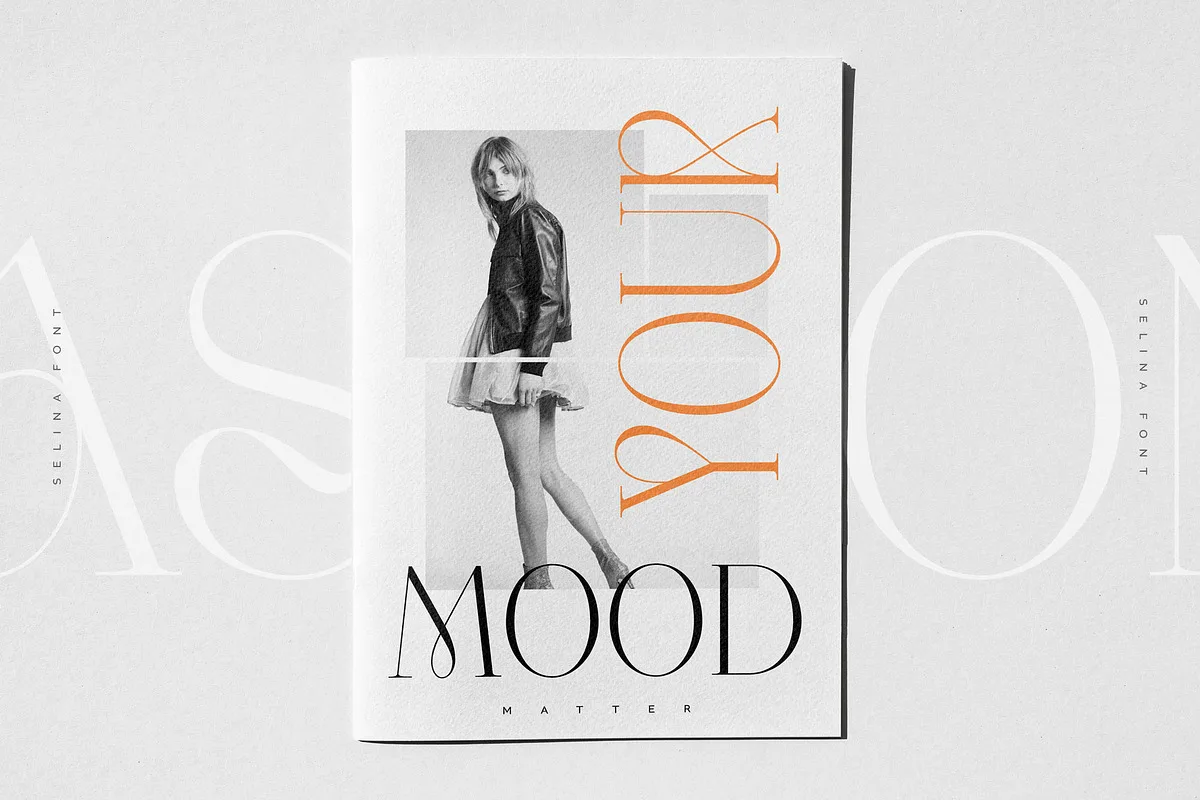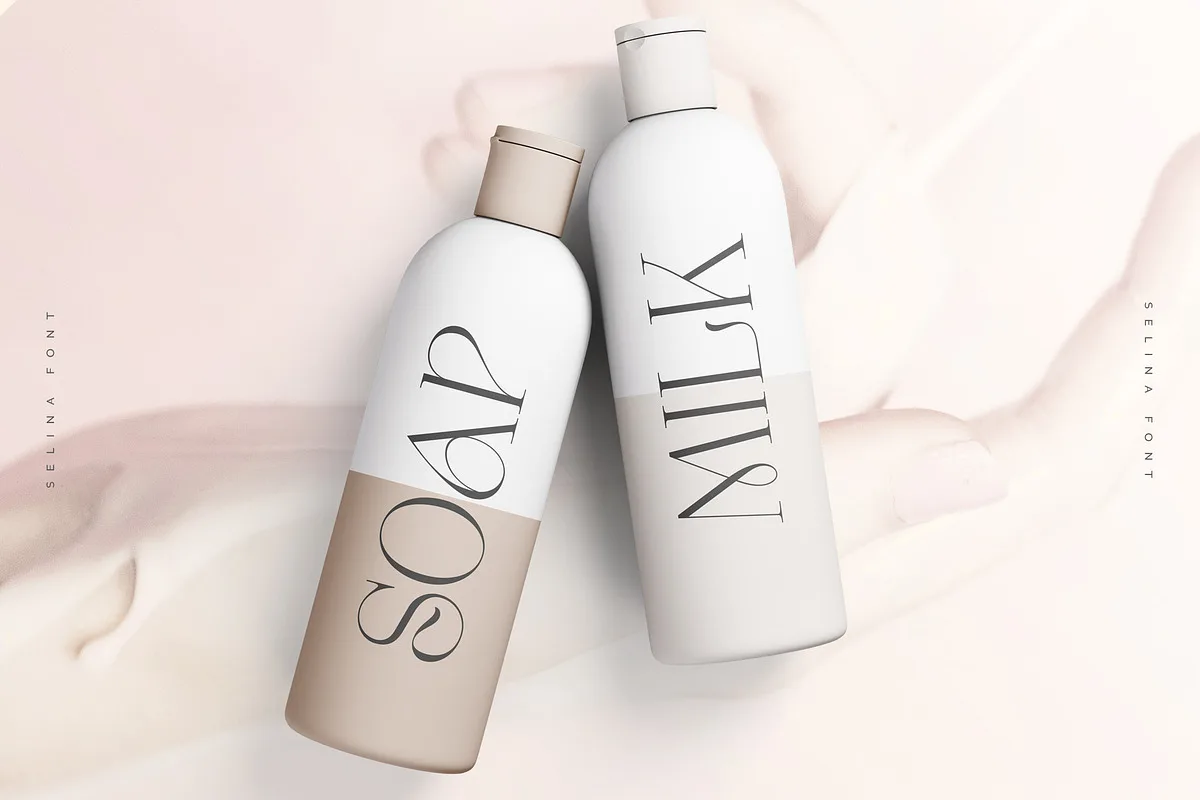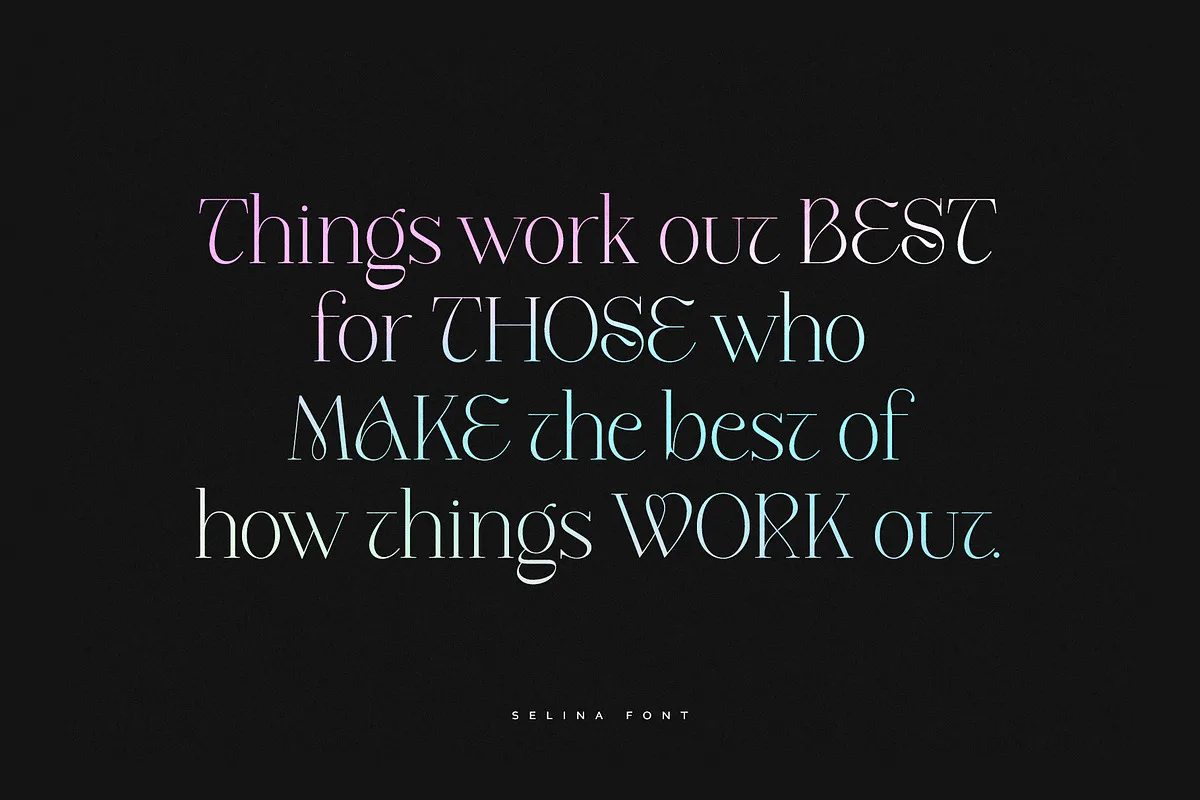
Selina is a modern serif font inspired by the fashion industry. It looks amazing at display sizes and is easily readable in text size. It is perfect for headlines, and titles, and is well-suited for advertising, fashion mood boards, branding, logotypes, packaging, titles, editorial design and modern and social media.